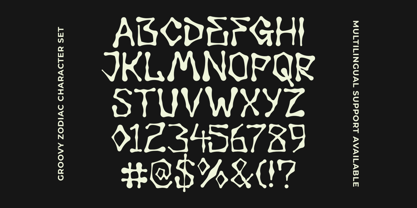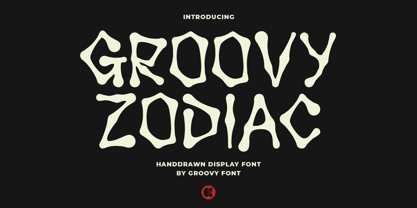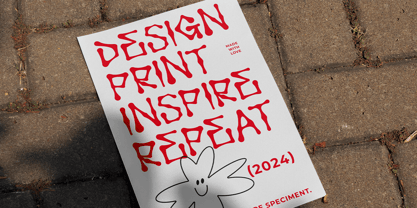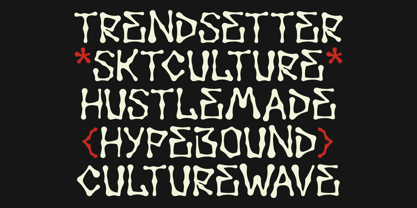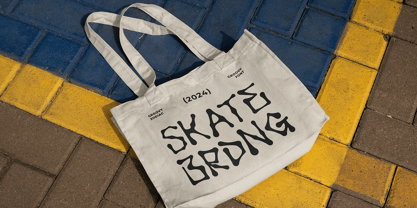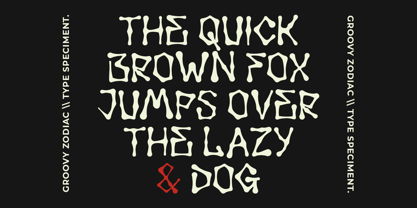
Groovy Zodiac
by Groovy Font
The Groovy Zodiac Font Family was designed by Ahmad Ginanjar Riyadi and published by Groovy Font. Groovy Zodiac contains 1 styles. More about this family
Groovy Zodiac is a hand-drawn display font crafted to mimic the appearance of bones.
This unique font is versatile and can be used for various design purposes such as creating Halloween-themed posters, spooky party invitations, horror movie titles, gothic-themed graphics, or any project that requires a macabre and intriguing touch.
Its handcrafted and eerie aesthetic can add a distinctive and memorable element to a wide range of design projects.
Designers: Ahmad Ginanjar Riyadi
Foundry: Groovy Font